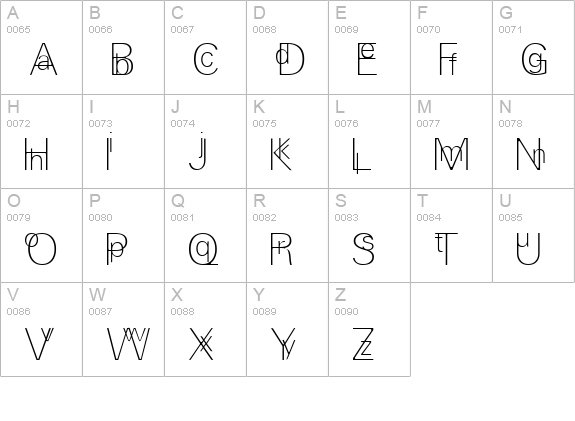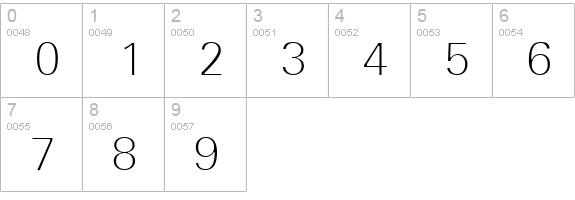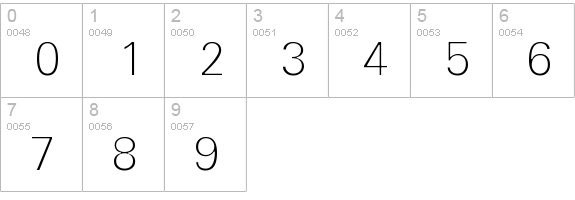
EfParasite font is a captivating and intriguing typeface that embodies a unique blend of elegance and edginess. With its intricate and artistic design, this font is bound to make a lasting impression on any project or creative endeavor. The EfParasite font is meticulously crafted with attention to detail, resulting in a visually stunning display of characters that effortlessly captivate the viewer's attention. Each letter is carefully sculpted with fluid lines and geometric shapes, creating an aesthetic that is both modern and timeless. Not only does the EfParasite font exude a sense of sophistication, but it also boasts versatility in its application. Whether you're designing a logo, creating a striking headline, or crafting a visually appealing poster, this font has the power to elevate any design to new heights. What truly sets the EfParasite font apart is its accessibility. As a free font, it is readily available for download at FontsMarket.com, making it easily accessible to designers and creators all over the world. This font allows for endless creative possibilities without the burden of a price tag, empowering individuals to freely express their artistic visions. In conclusion, the EfParasite font is an exceptional typeface that combines elegance and edginess seamlessly. Its intricate design, versatility, and accessibility make it a perfect choice for any design project. With its free availability at FontsMarket.com, this font is a valuable asset for any designer or creative enthusiast. Embrace the captivating allure of EfParasite and unlock a world of design possibilities.